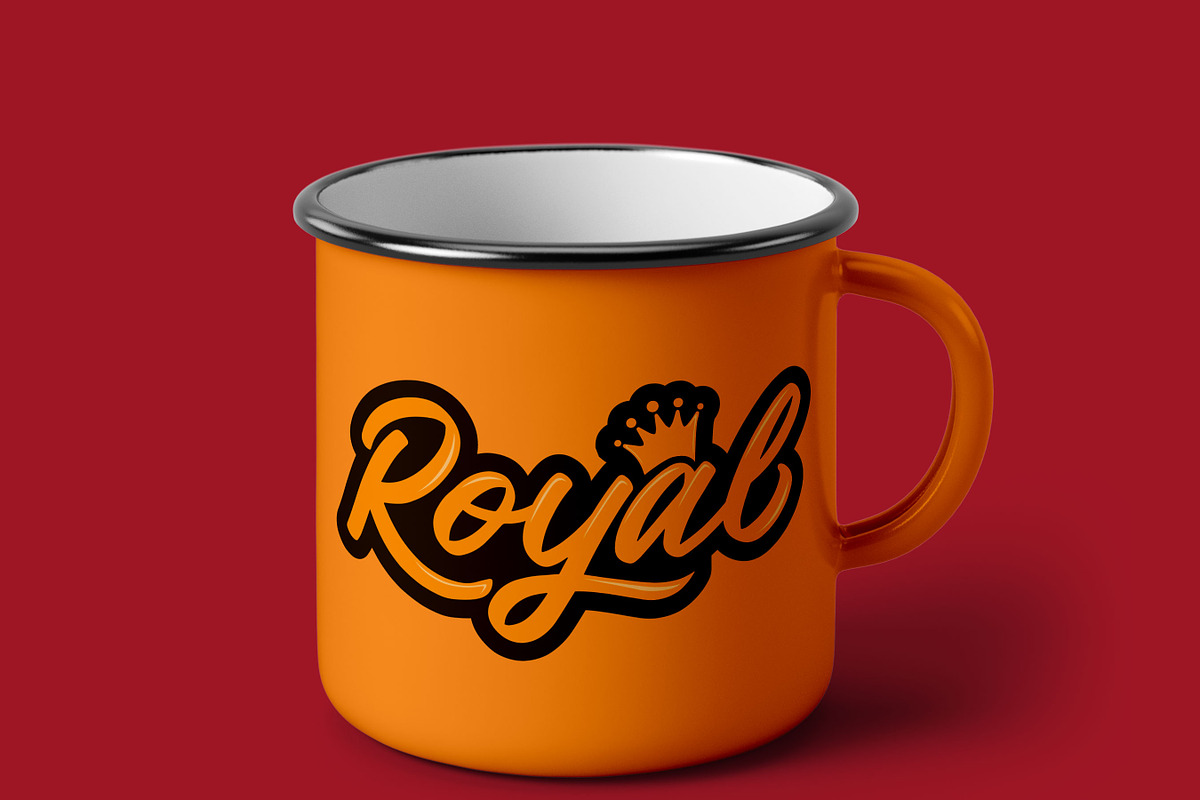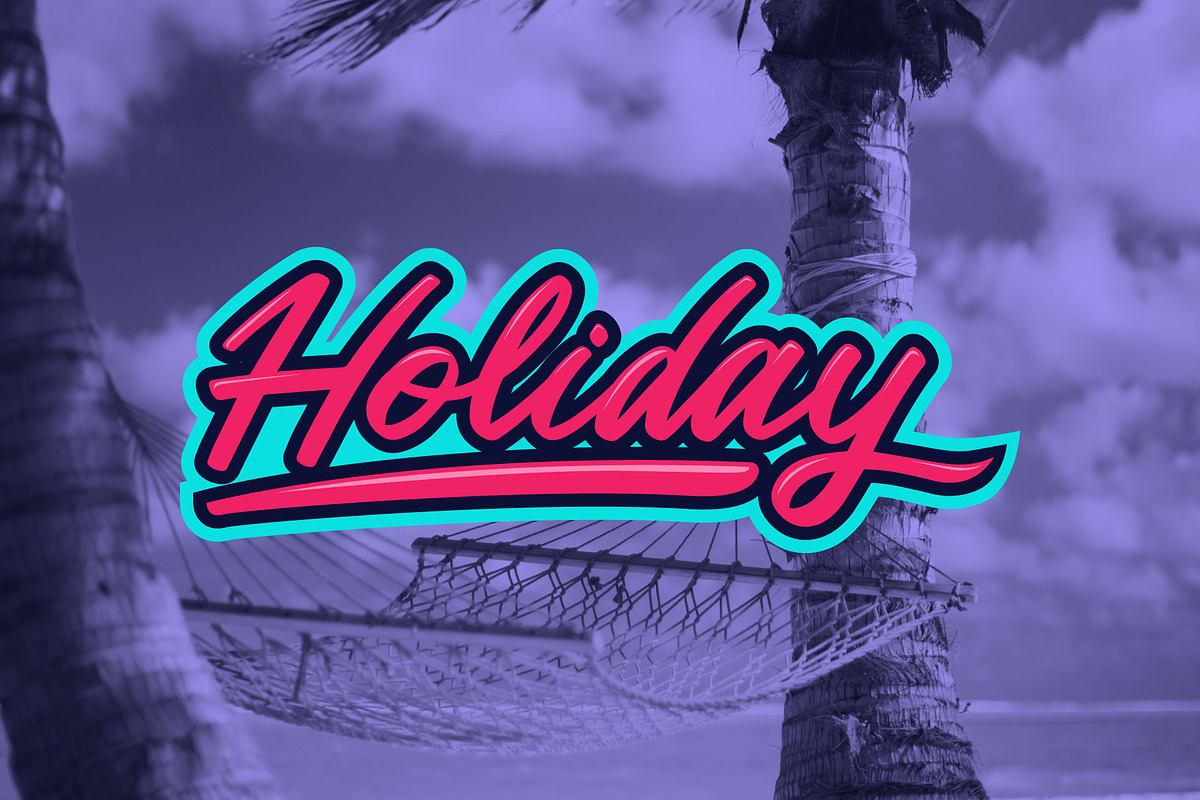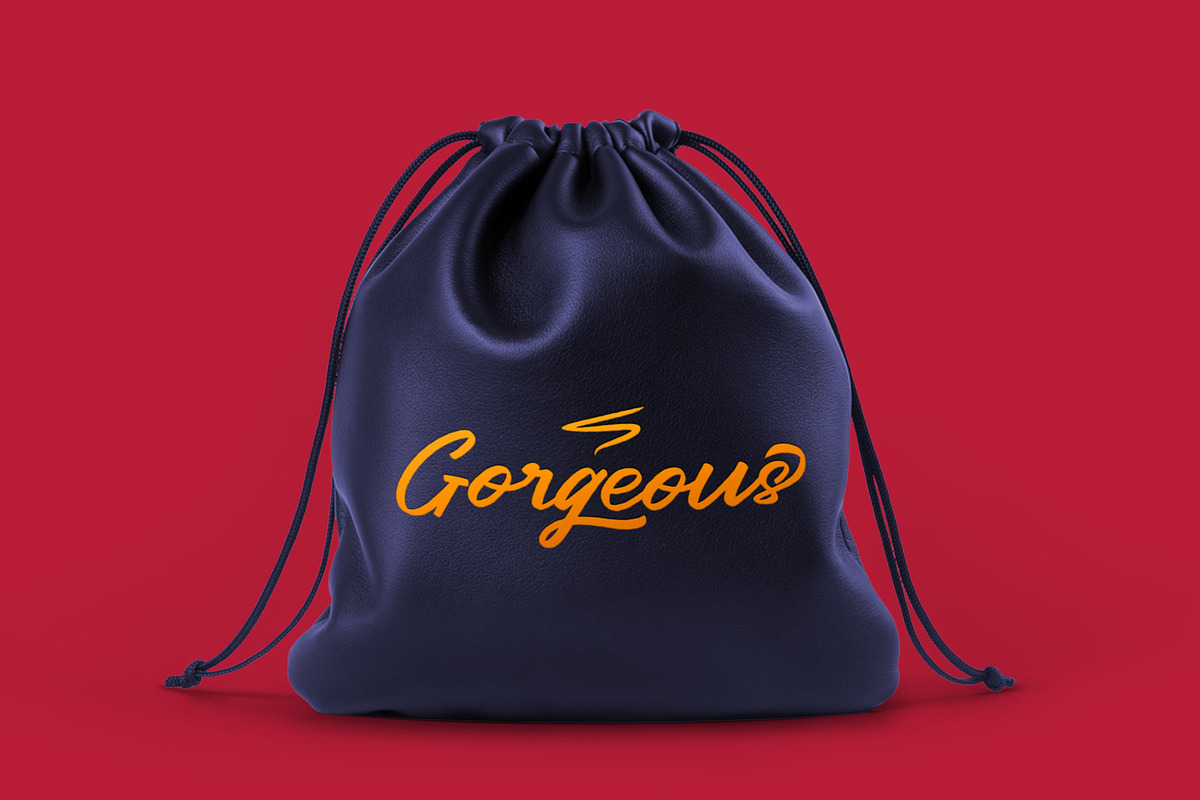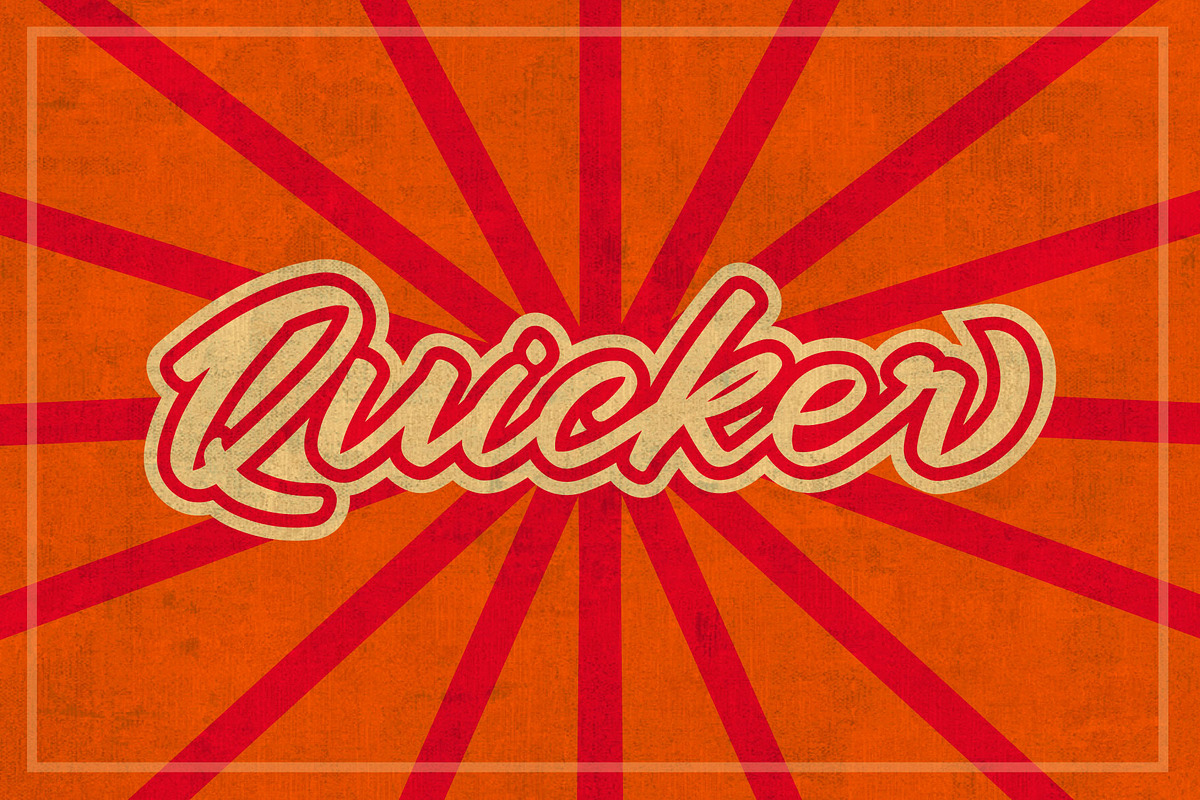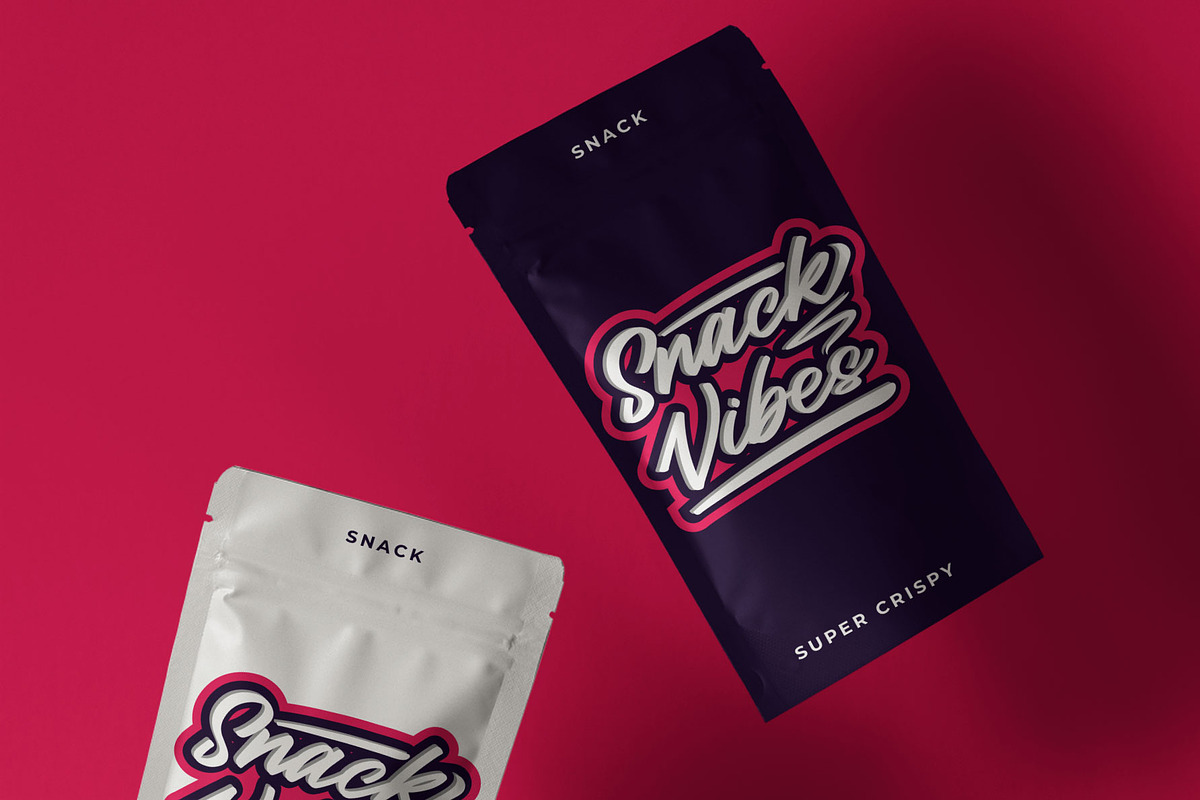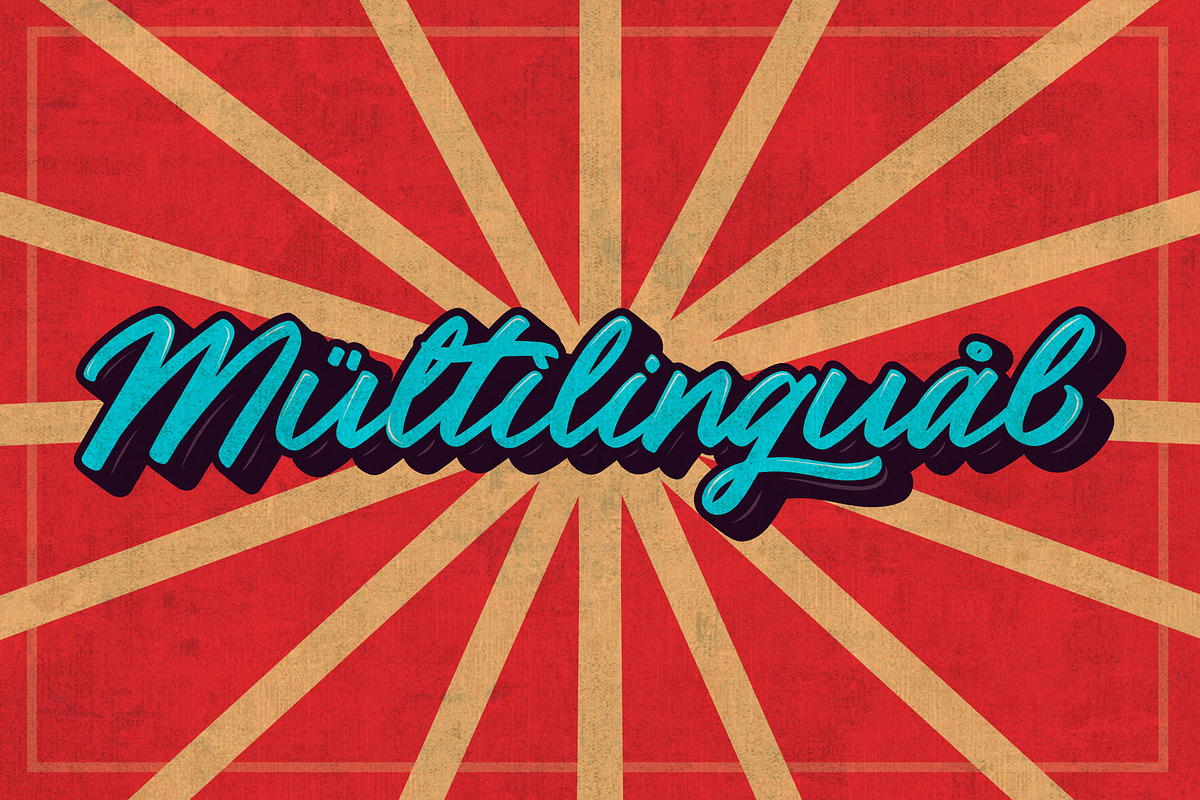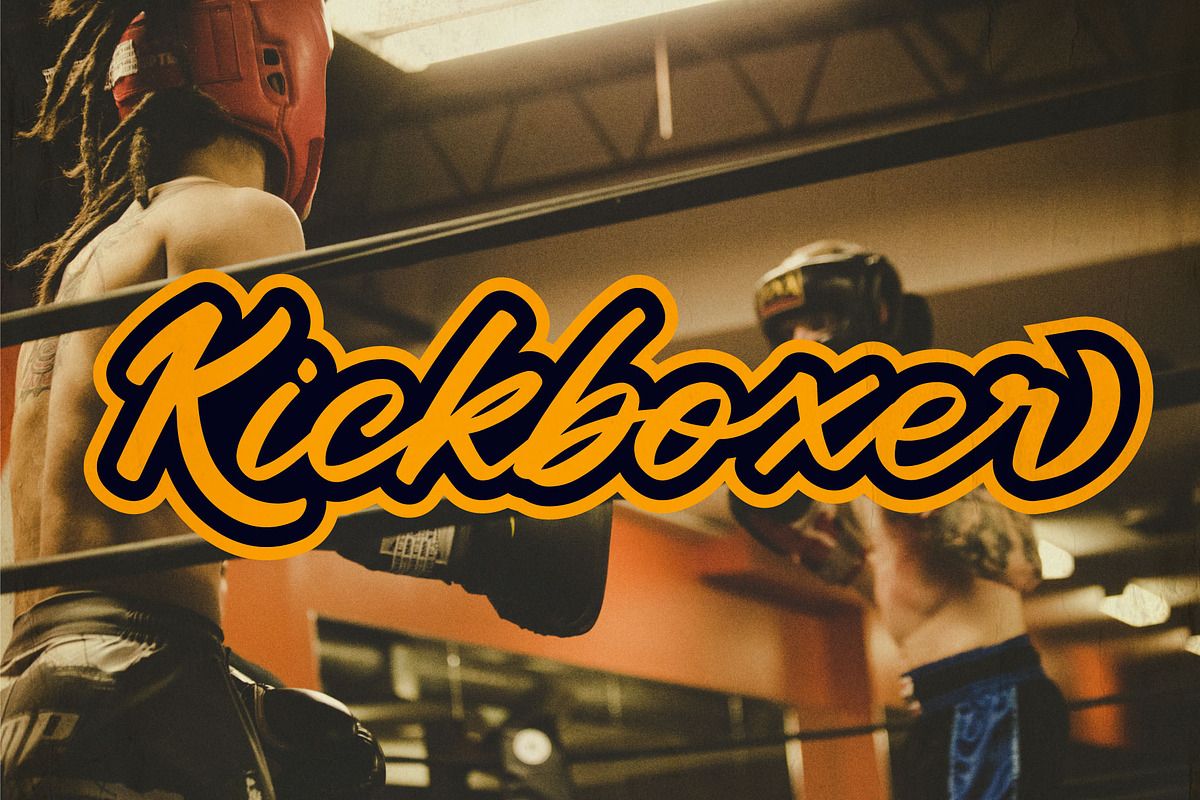
Hatchy - Script font
Introducing Hatchy a stylish script that will stands out from the crowd! This font is perfect for logotype, illustration, apparel design, label, and many more.! This has many opentype features like ligature, stylistic alternate, contextual alternate, swash, etc and support multi language.
~More than 263 of glyphs (include Uppercase, Lowercase, Numerals & Punctuations, Ligature, Stylistic, and, Multilingual Support)